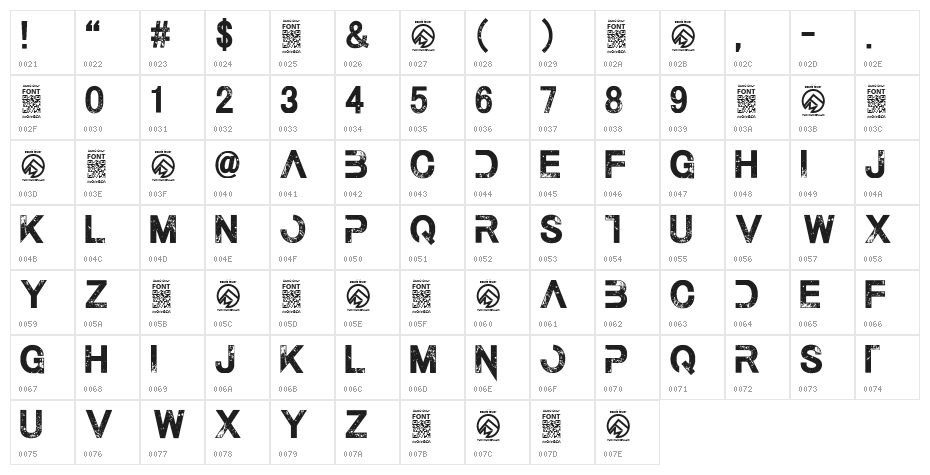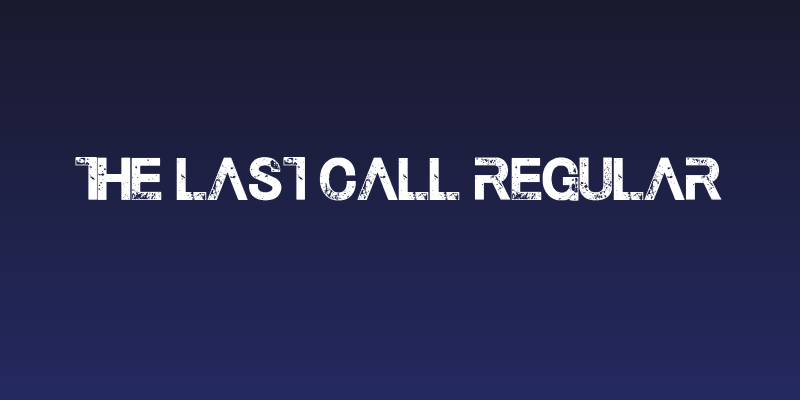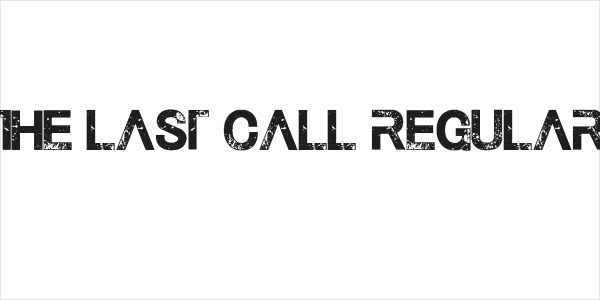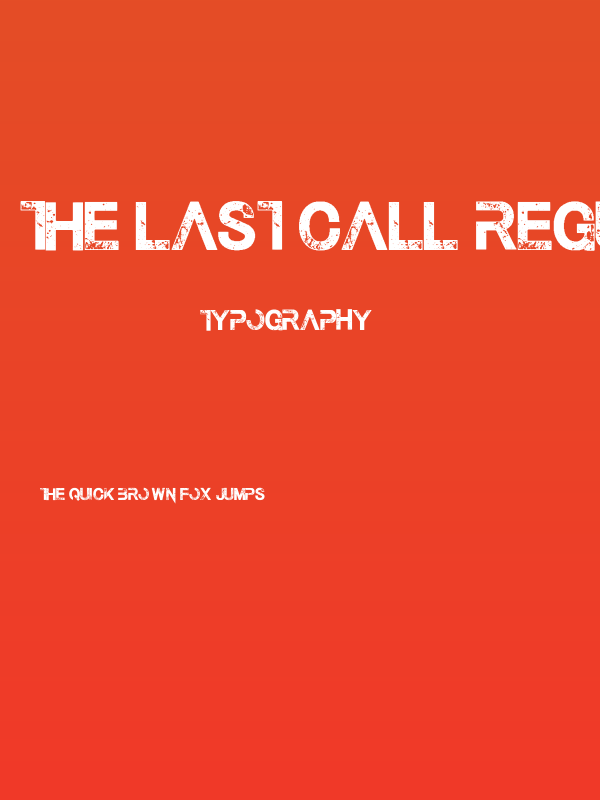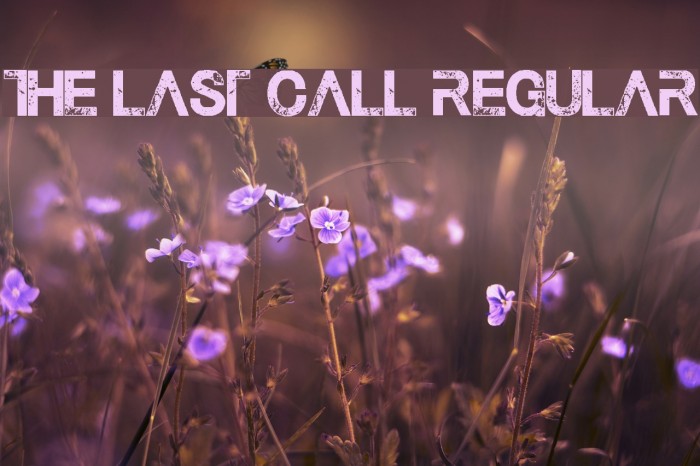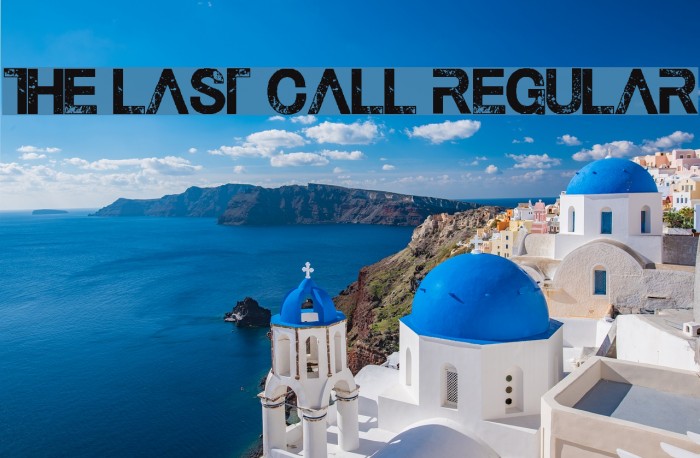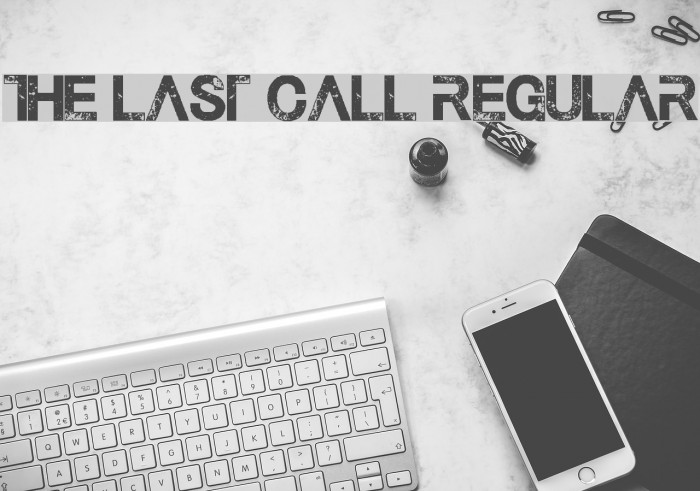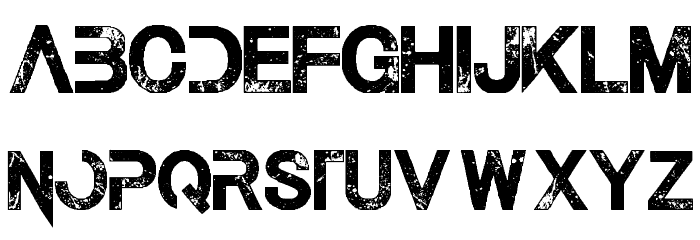
The Last Call Regular Font
The Last Call Regular Description
This font features a bold, distressed style with a grunge texture that gives it a rugged and worn appearance. The uppercase letters are uniform in height, with a slightly condensed width that adds to its impactful presence. The numbers and special characters maintain the same distressed aesthetic, ensuring consistency across all glyphs. The font's design is ideal for projects that require a strong, edgy look, such as posters, album covers, or branding for alternative or rock-themed events. Its unique texture and bold weight make it stand out, while the condensed width allows for efficient use of space.
| Overall Style | Grunge, Edgy |
| Proposed Projects | Ideal for posters, album covers, branding for alternative events, and any project needing a strong, edgy aesthetic. |